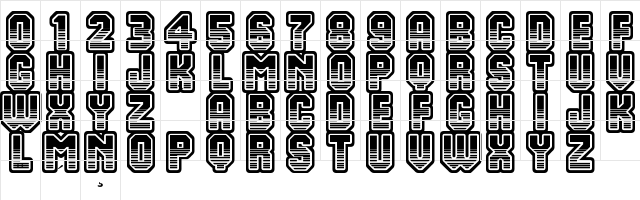
Team 401 Regular Font Preview
Team 401 Regular
Team 401 Regular Font Details
Design Context for Team 401 Typeface
Team 401 is a composed and adaptable typeface that performs quietly and consistently across a wide range of design contexts.